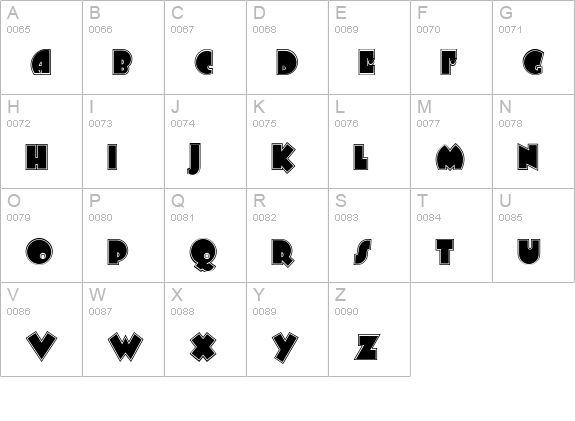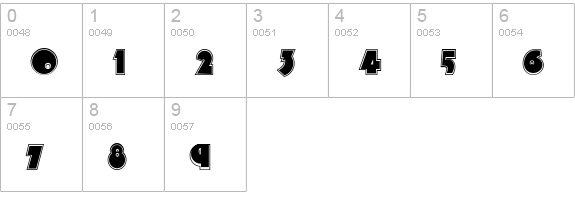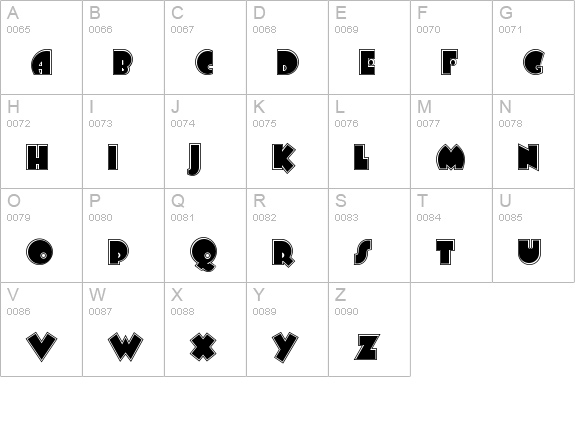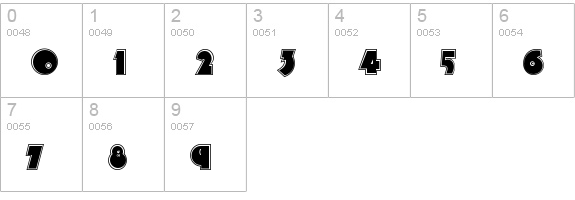
Arbuckle Inline NF is a versatile and stylish font that exudes a sense of sophistication and modernity. Its clean lines and bold presence make it perfect for a wide range of design projects, from logos to headlines to branding materials. This unique font combines a classic inline style with a contemporary twist, creating a look that is both timeless and on-trend. One of the best things about Arbuckle Inline NF is that it is available for free download at FontsMarket.com. This means that you can easily access this high-quality font without any cost, making it a fantastic option for designers on a budget or anyone looking to add a touch of elegance to their projects. Don't miss out on the opportunity to enhance your designs with Arbuckle Inline NF - download it today and see the difference it can make!